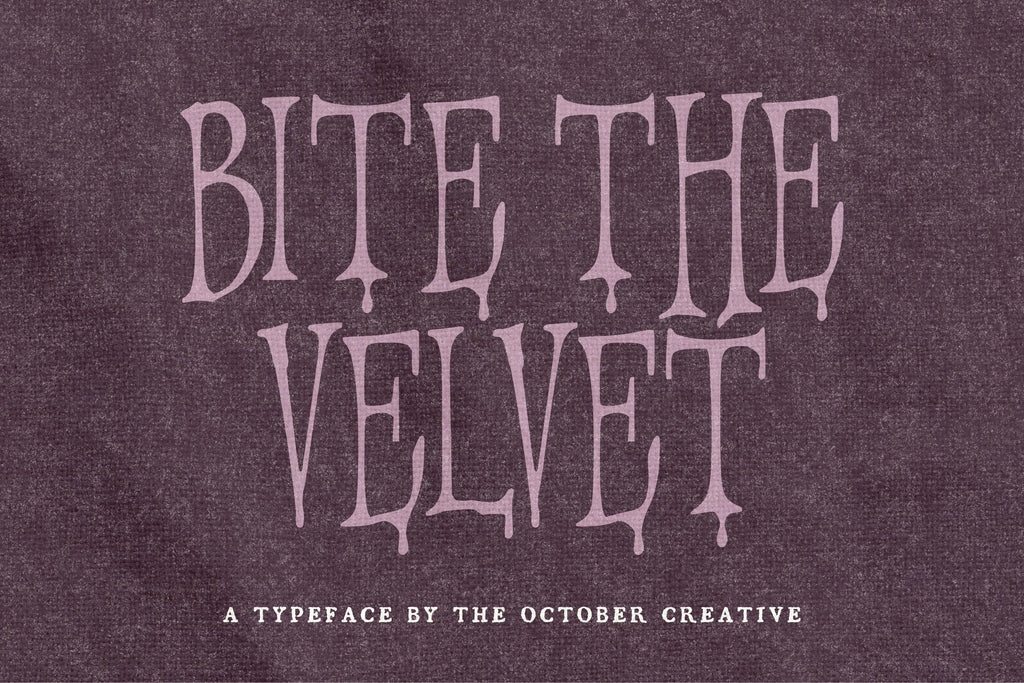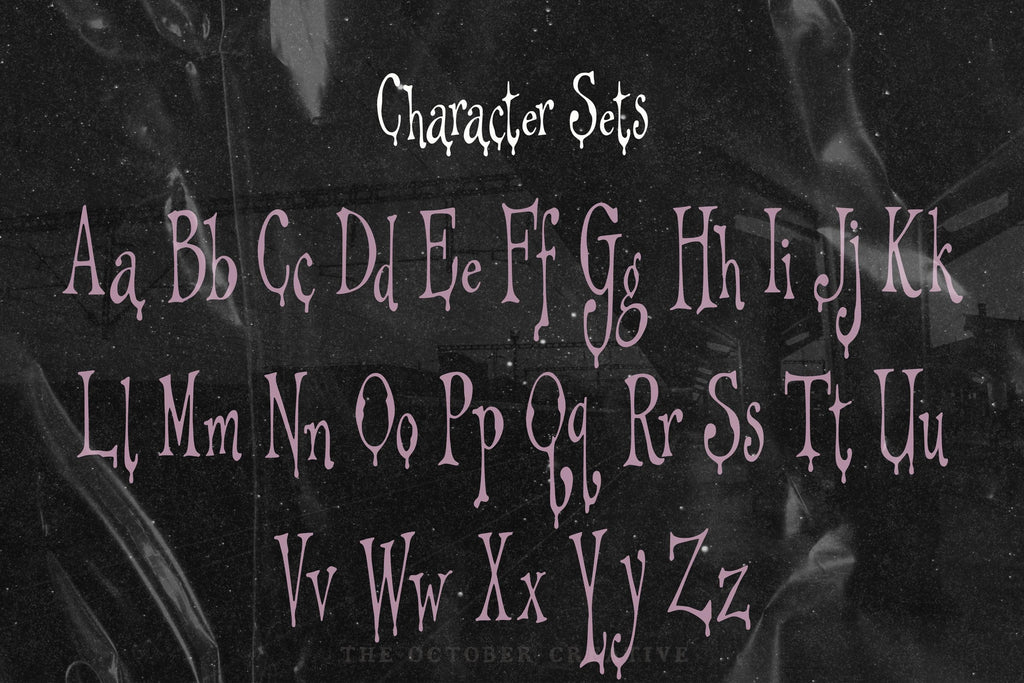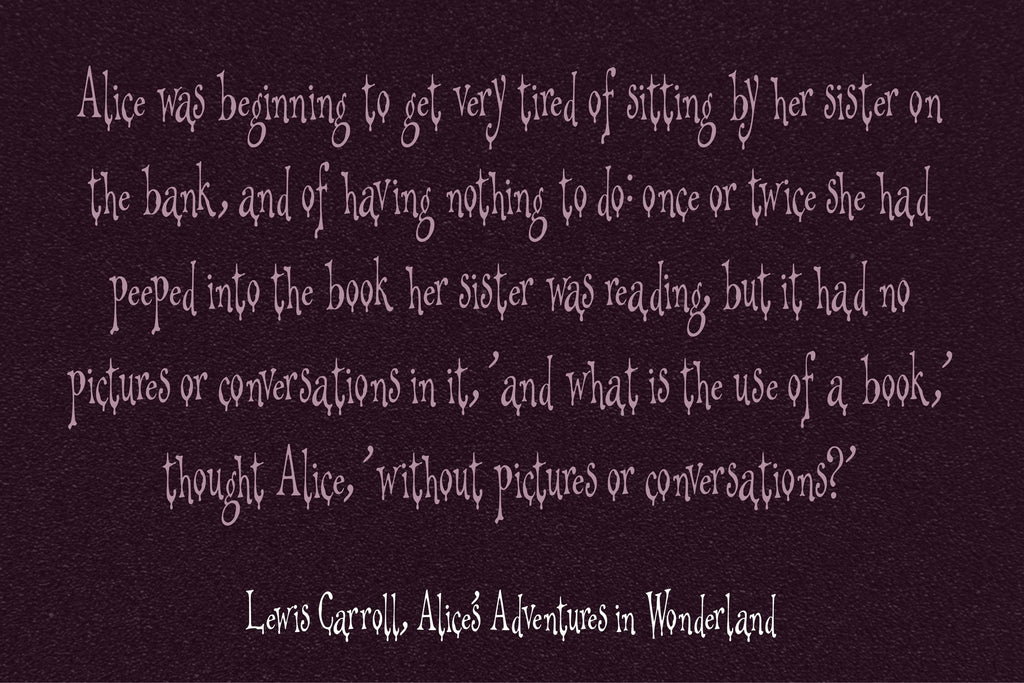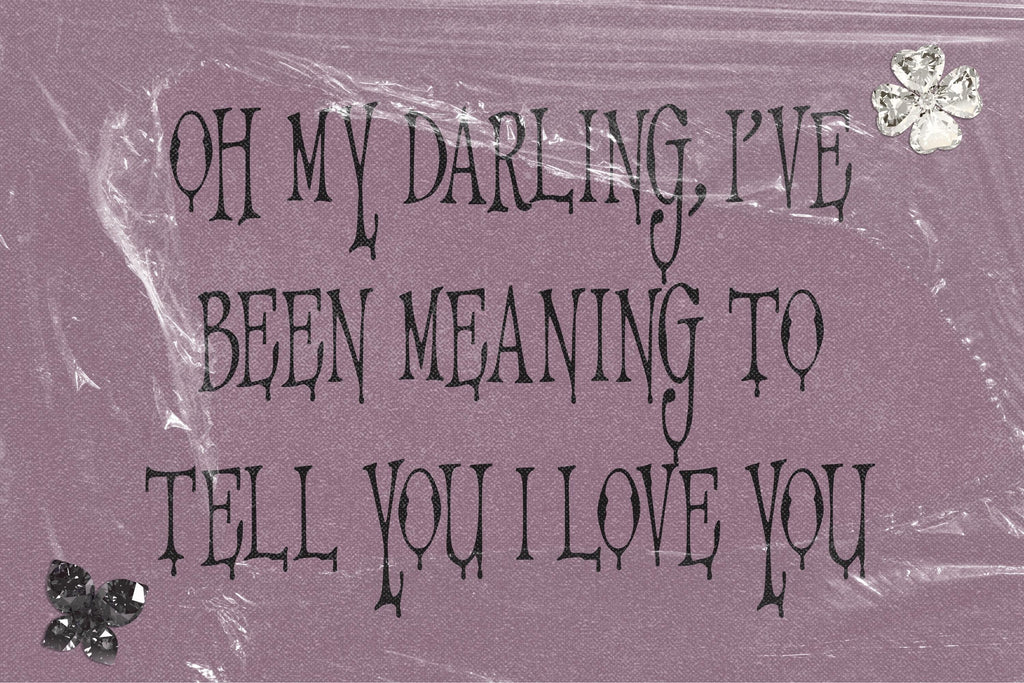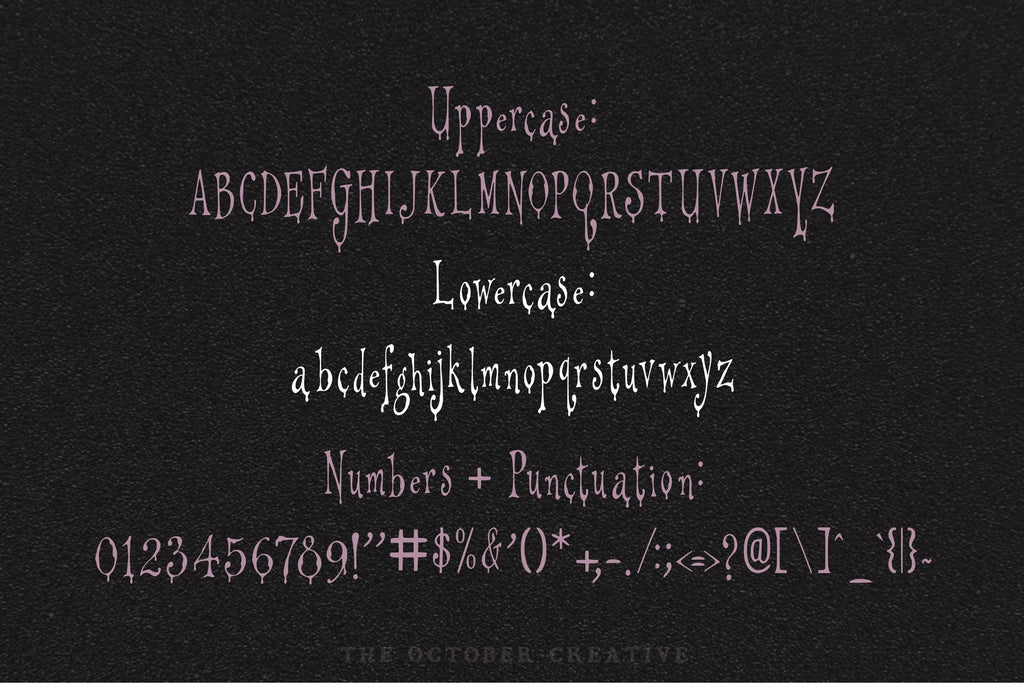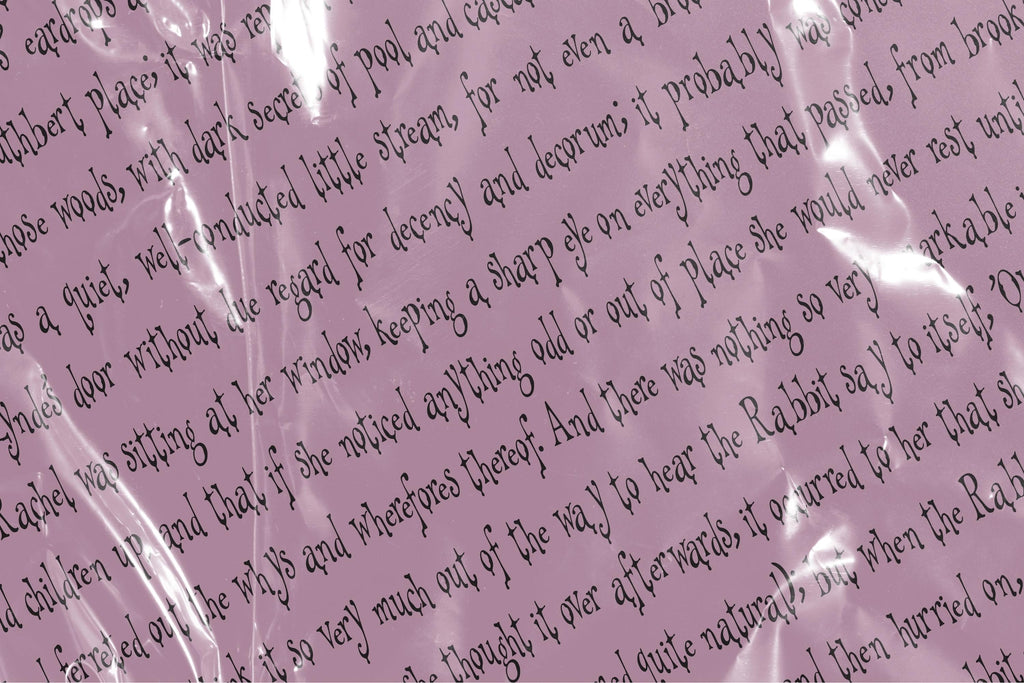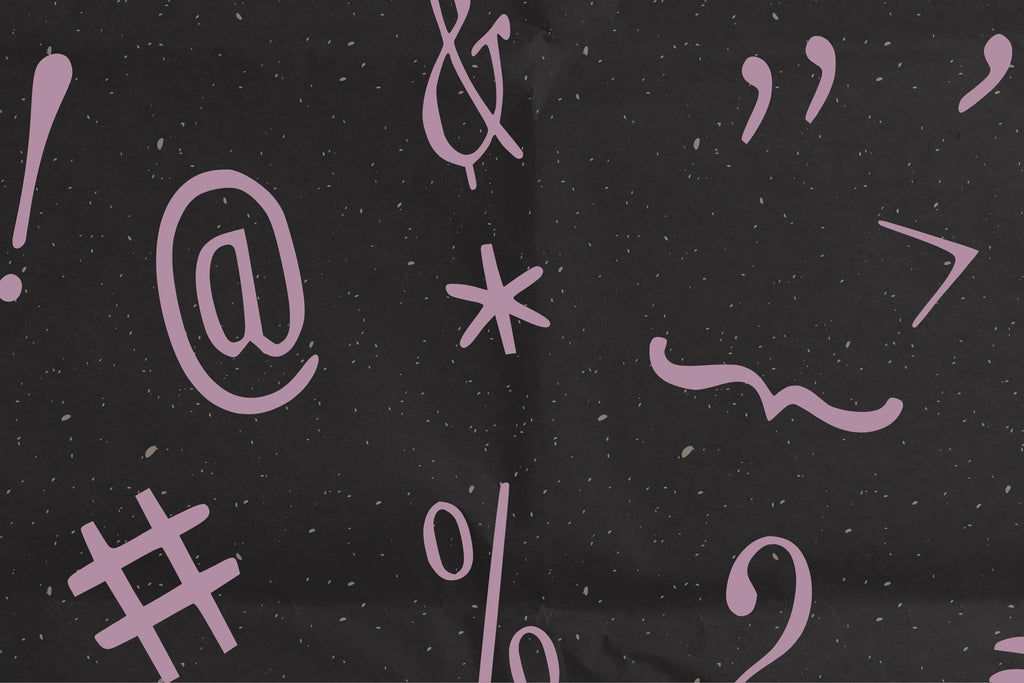
Bite the Velvet Font
Bite the Velvet adds a deliciously dark touch to wedding invitations, dinner menus, and place cards. Its tall, narrow letters have sharp little points and a few dangling drips, perfect for a celebration with candlelight and a slightly wicked guest list.